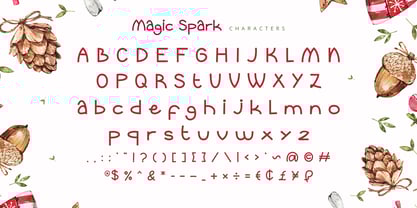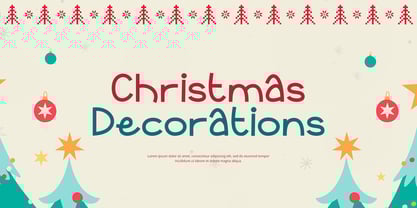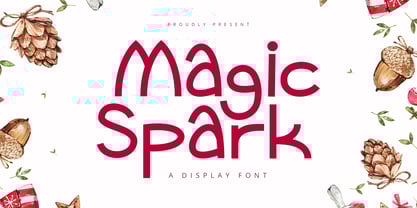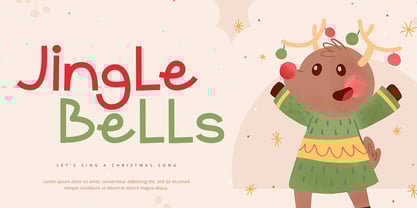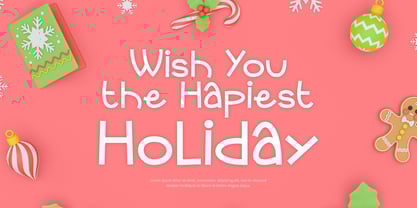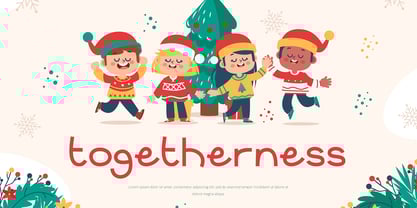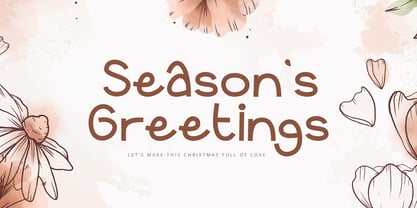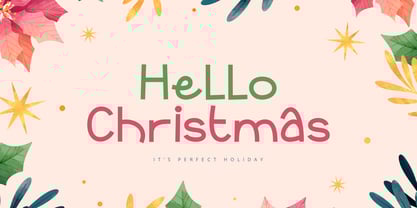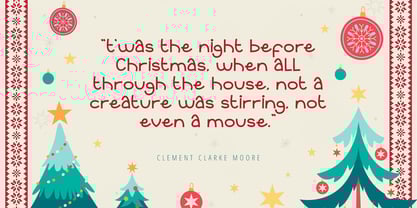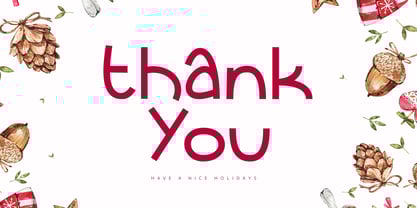
Magic Spark
by Alpaprana
The Magic Spark Font Family was designed by Nadia Salsabila and published by Alpaprana. Magic Spark contains 1 styles. More about this family
Magic Spark is a playful display font with cute and unique style. It will be perfectly used for Branding, Logo Design, Lettering, Logotype, Clothing, Poster, magazine, packaging, posters, shopping bags, t-shirts, book covers, photography, special events and other design project.
Designers: Nadia Salsabila
Foundry: Alpaprana